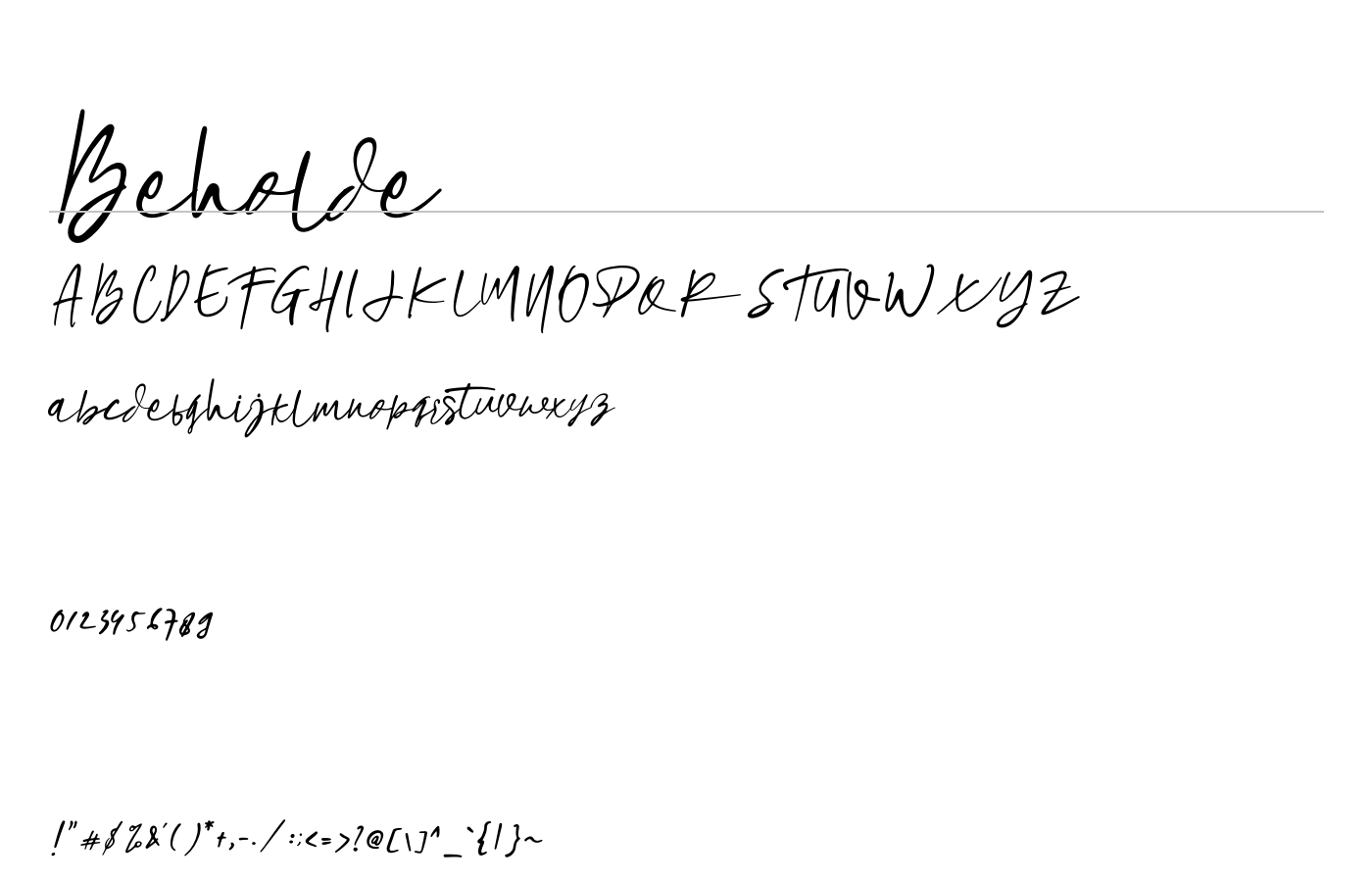
Beholde is a delicate, handwritten script font characterized by its thin strokes, casual flow, and slightly narrow letterforms that convey an elegant yet personal touch. Its light weight and airy design make it ideal for creative projects like invitations, branding, or editorial accents where a refined, feminine, and approachable feel is desired. This font works best in display use, offering charm and personality without overwhelming the design.
Beholde Font
About Beholde Font